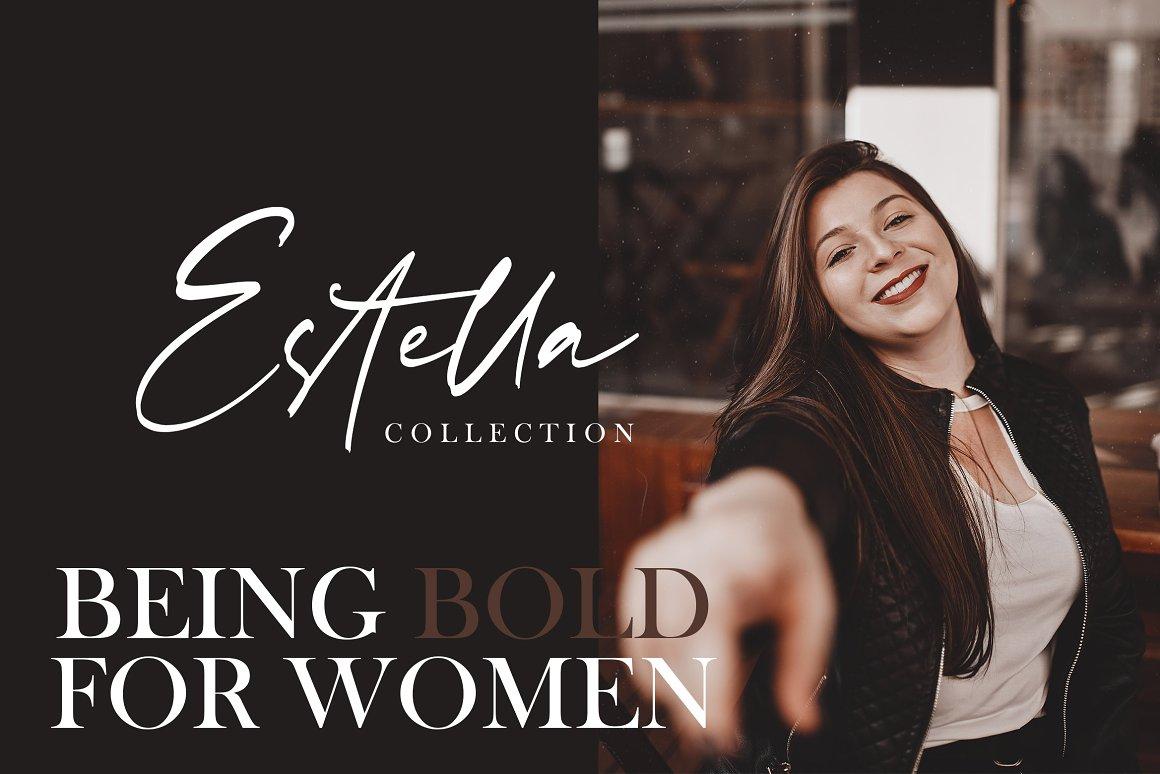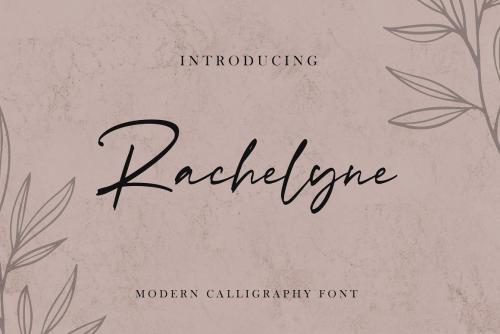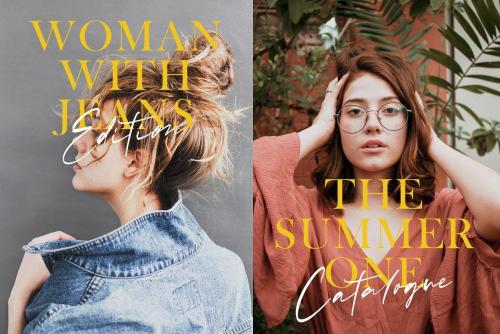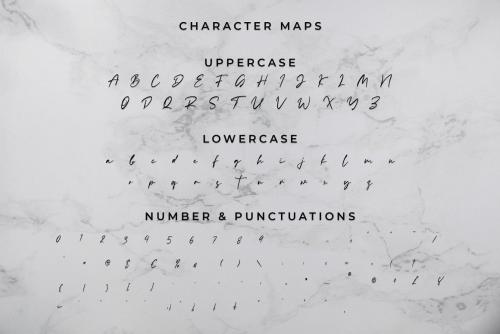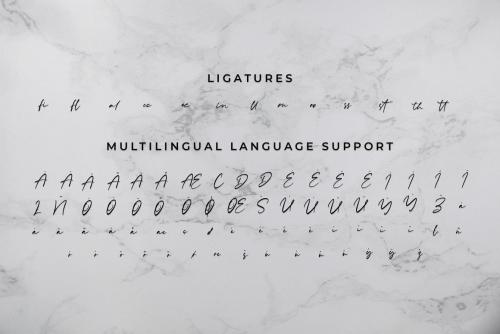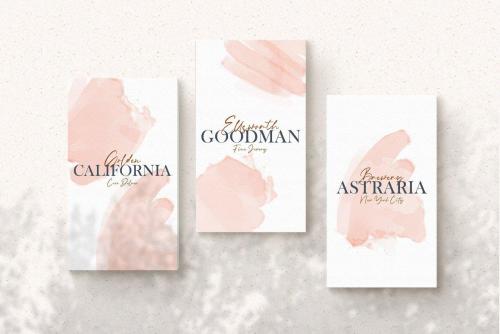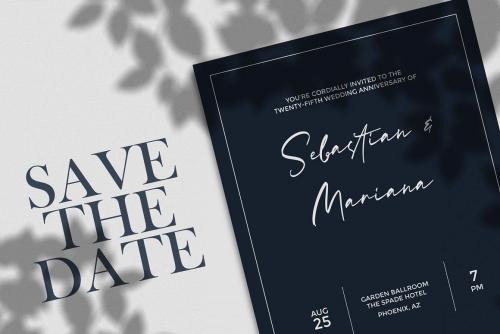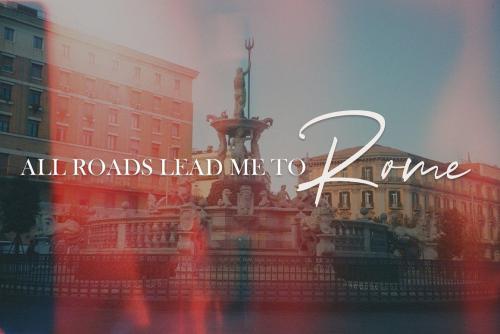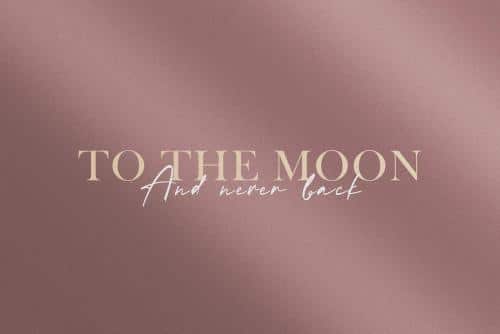
Rachelyne is a Calligraphy Script Font with Casual Style. This font is perfect for fashion brand, wedding invitation, business card, logo brand, signature, and also for calligraphy purpose.
This Font Template contains Classy, Elegant, Creative, Cool and has a Unique Concept.
- Designer: StringLabs